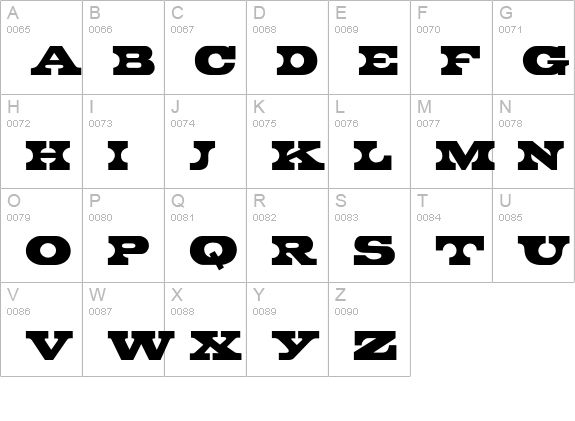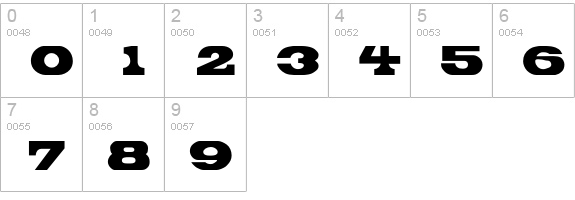
Crocodile Font Details
Introducing the Crocodile font, a sleek and modern typeface that exudes strength and elegance. With its sharp edges and bold lines, Crocodile is perfect for making a statement in your designs. Whether you're creating a logo, poster, or website, this versatile font will add a touch of sophistication to any project. Best of all, Crocodile is available for free download at FontsMarket.com. Don't miss out on this opportunity to elevate your design work with the eye-catching Crocodile font.